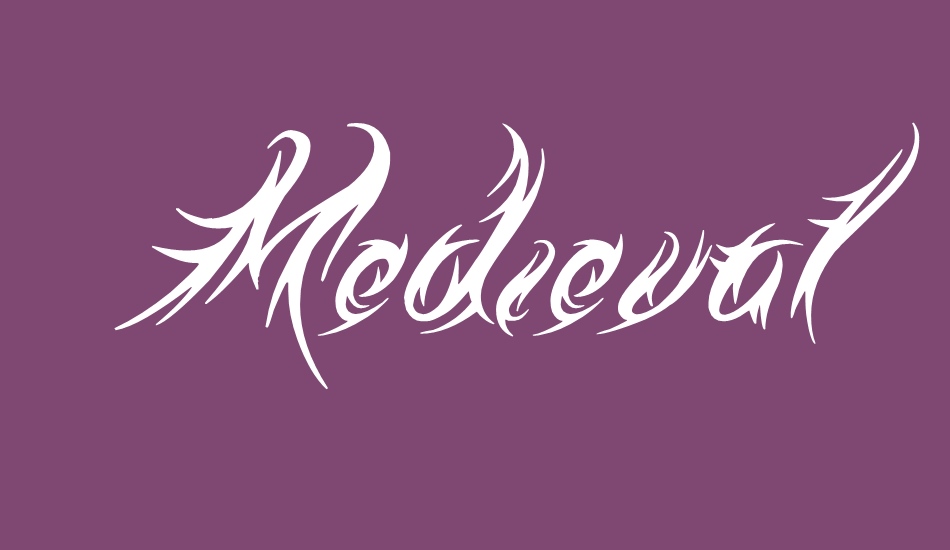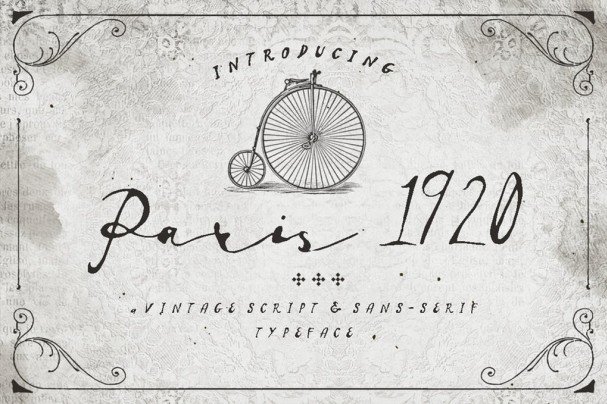
Henshin Font
Henshin Font comes under the elegance of novels. This font is usually used on the websites. This typeface is likewise referred to as the saldina font. In maximum instances, conventional alternatives likely your exquisite guess similar to the sultan cafe will round out your layout well and could permit you to supply the right tone …
Chopin Script Font
Chopin Script Font comes under the class of Calligraphic fonts. This typeface share similarity with the brock script and baroque script font. This works nicely for advertising and marketing A textured with an unfashionable drop shadow like economica font so you can deliver an elderly revel into your artwork. Style Of Chopin Script Font Free …
Medieval Queen Font
The Medieval Queen Font is utilized in Adobe software. This font is commonly used on Android mobile devices and is also known as a Halloween font. Those are hand-drawn fonts that truly deliver off an actual private contact for your obligations. It’s also one of the maximum used fonts inside the google fonts. Style of …
Amorica Font
Amorica Font is classified as a thin font and is included in Google Fonts. It is known for its sleek and sophisticated look. And he releases it through range foundry for the primary time. This has taken the basics of sophia font. This font is used in the photodetection technique. Style Of Amorica Font Free …
Paris 1920 Font
Paris 1920 Font is known for its ability to pair well with other fonts, resembling the mockup of the rebuffed font. This font can be found on Google Fonts. This font is multipurpose and bendy, make its miles had to talk with a few accurate typefaces to create some right assignments harking back to wed …
Butler Regular And Stencil Font
Butler Regular And Stencil Font falls under the elegance of outline fonts, this Font is utilized for its Bold feature as well as for pairing functions. Now, the exceptional’s producers took the all proper reserved for this industrial business company. Its headquarter located downtown, north. On the same time, this is extensively utilized in software …